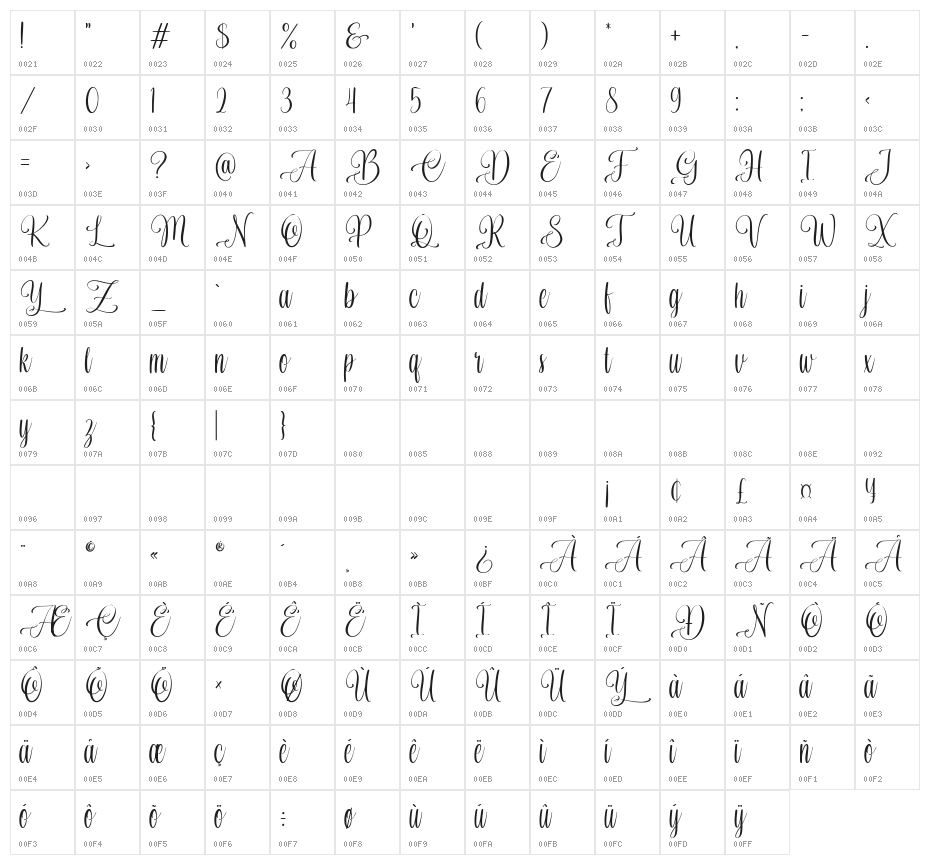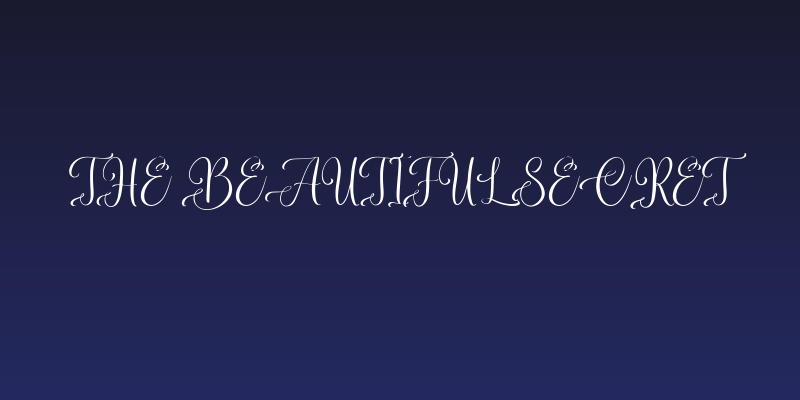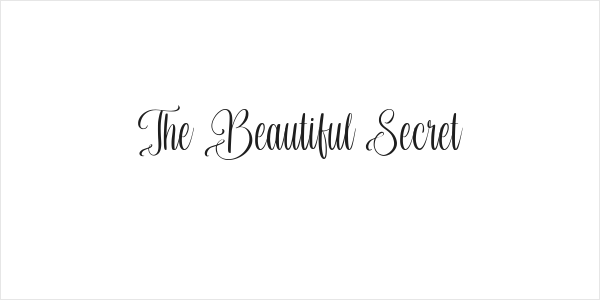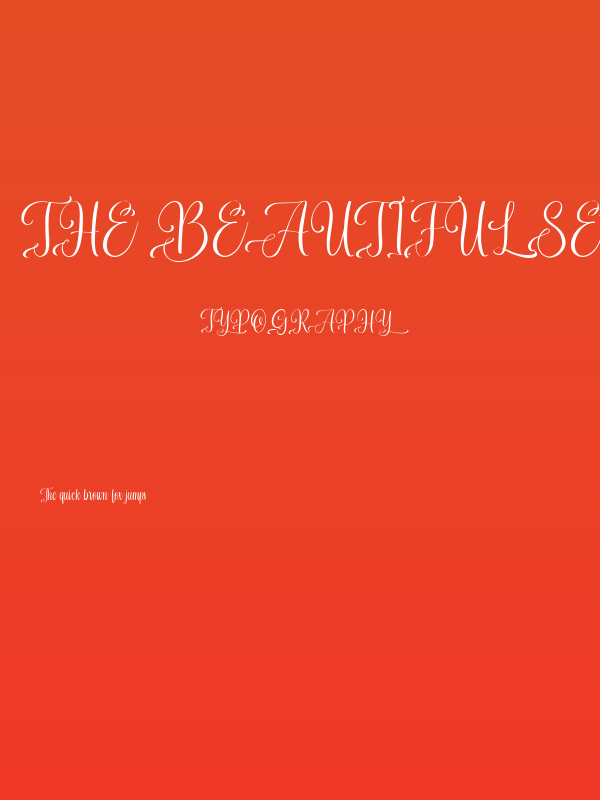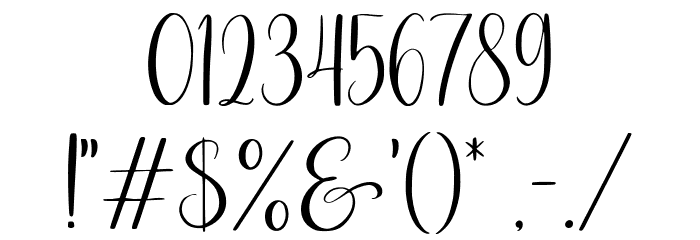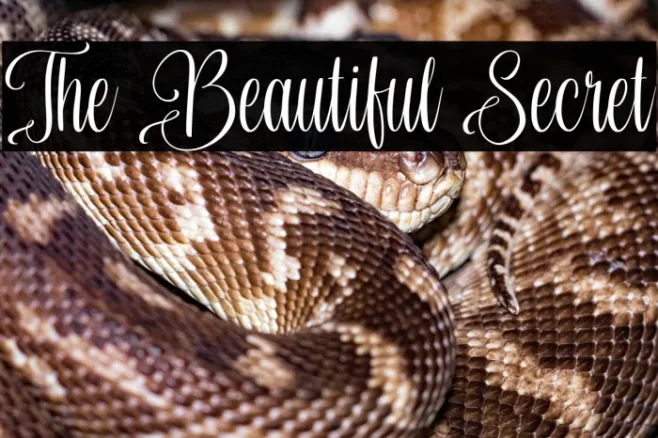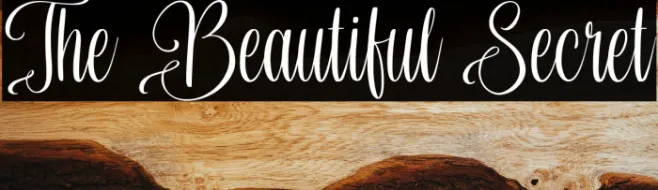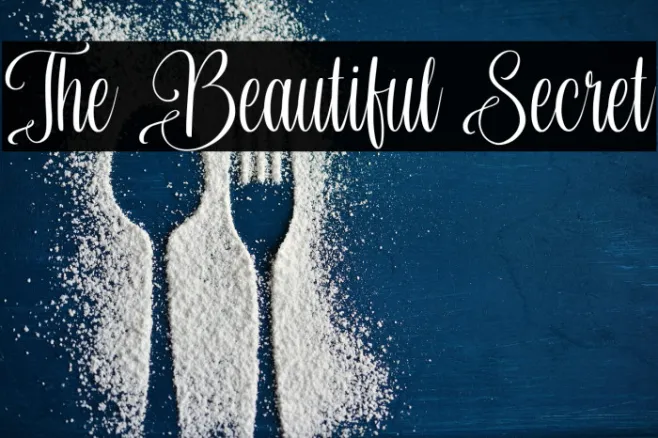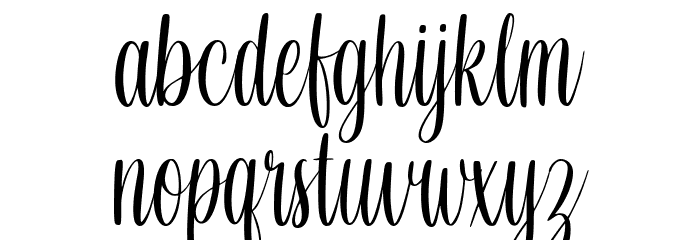
The Beautiful Secret Font
The Beautiful Secret Description
This elegant script font features a graceful and flowing style, characterized by its intricate swashes and loops. The uppercase letters are adorned with decorative flourishes, giving them a sophisticated and ornate appearance. The lowercase letters maintain a smooth and connected cursive style, enhancing readability while preserving the font's artistic flair. The numerals are consistent with the overall design, offering a harmonious blend of elegance and functionality. Special characters are thoughtfully designed to complement the font's aesthetic, making it suitable for a variety of creative applications.
| Use Case | Logos, Invitations, Decorative Text |
| Proposed Projects | Ideal for wedding invitations, elegant branding, greeting cards, and decorative signage. |